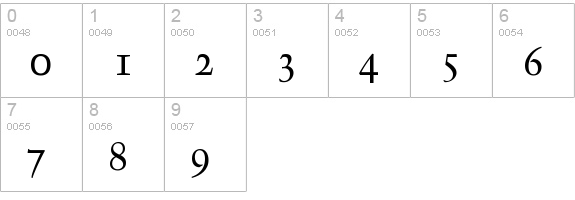
Blackford OldStyle SSi Small Caps Font Details
Blackford OldStyle SSi Small Caps font is a timeless and elegant typeface that exudes sophistication and class. With its classic serif design and delicate small caps, this font is perfect for adding a touch of refinement to any project. Its clean lines and balanced proportions make it versatile for different design purposes, from elegant invitations to professional documents. The Blackford OldStyle SSi Small Caps font is a versatile choice for those seeking a traditional yet stylish typeface. Its small caps add a unique flair, making it stand out from other serif fonts. Whether you are designing a wedding invitation, a business card, or a magazine layout, this font will add a touch of sophistication to your work. The best part? Blackford OldStyle SSi Small Caps font is available for free download at FontsMarket.com. You can easily access this beautiful font and use it in your projects without any cost. So why wait? Download Blackford OldStyle SSi Small Caps font today and elevate your designs with its timeless charm.